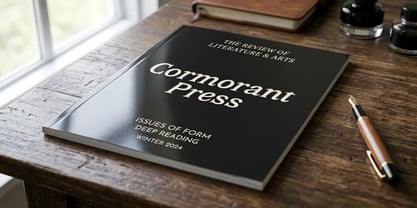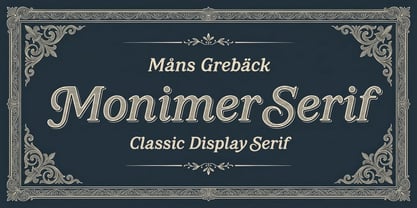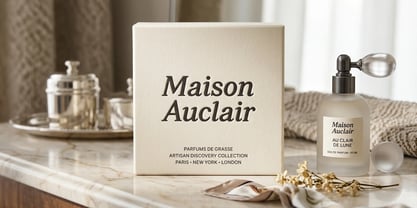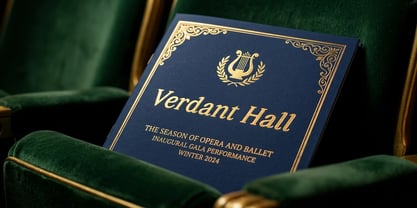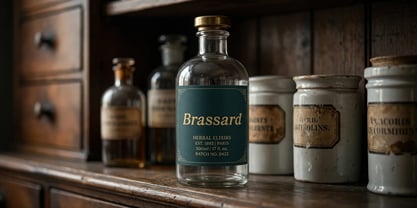
Monimer Serif
by Mans Greback
The Monimer Serif Font Family was designed by Måns Grebäck and published by Mans Greback. Monimer Serif contains 2 styles and family package options. More about this family
Monimer Serif is a characterful display serif with calligraphic flair — lively, slightly slanted forms, generous curves and crisp bracketed serifs. It reads classic and bookish yet warm, suited to editorial mastheads, book covers, packaging and refined branding.
Designed and created by Mans Greback.
The font is built with advanced functionality and guaranteed top-notch quality, containing stylistic and contextual alternates, ligatures and more automatic and manual features; all to give you full control and customizability.
It has extensive lingual support, covering all Latin-based languages, from North Europa to South Africa, from America to South-East Asia. It contains all characters and symbols you'll ever need, including all punctuation and numbers.